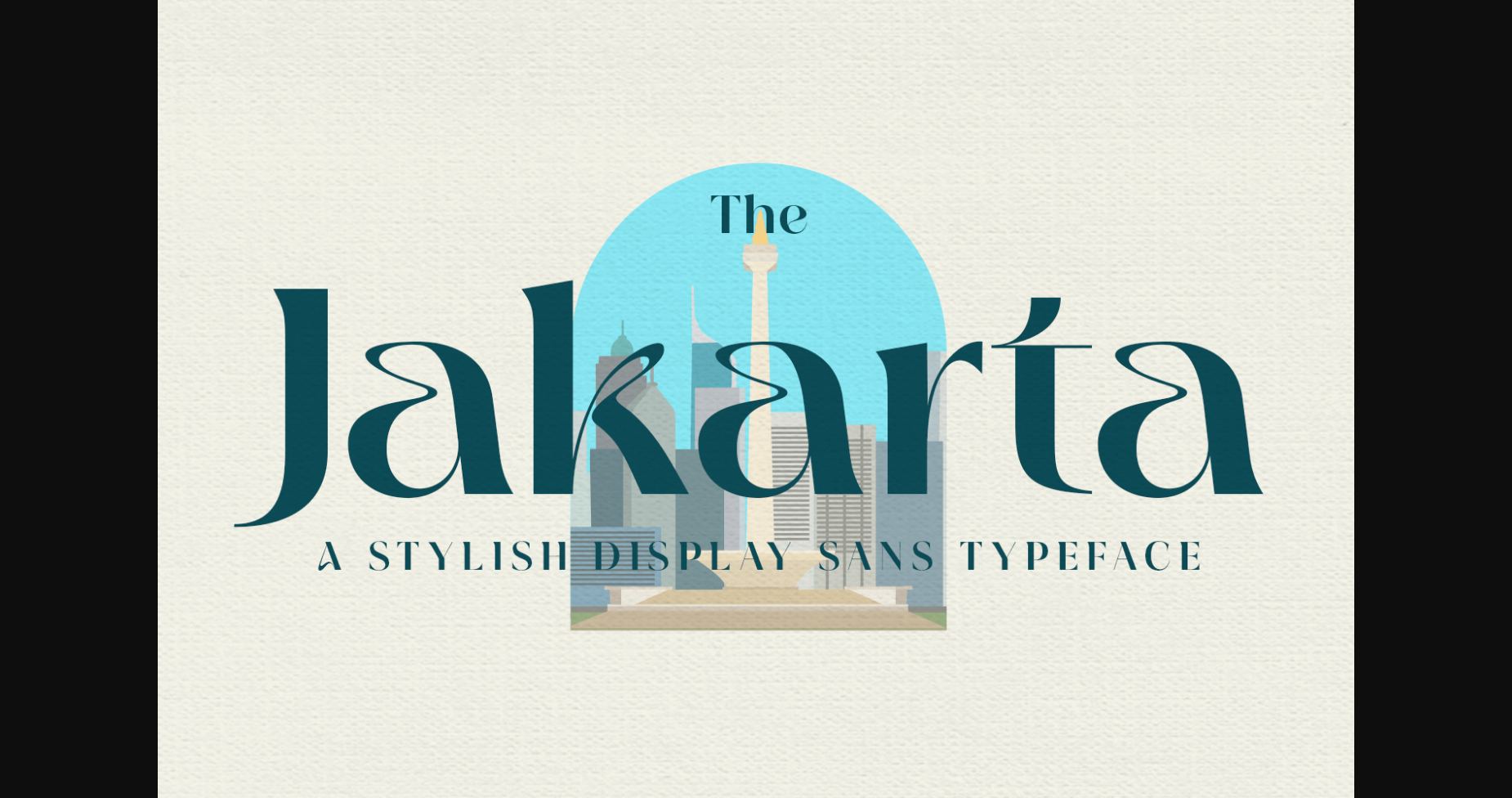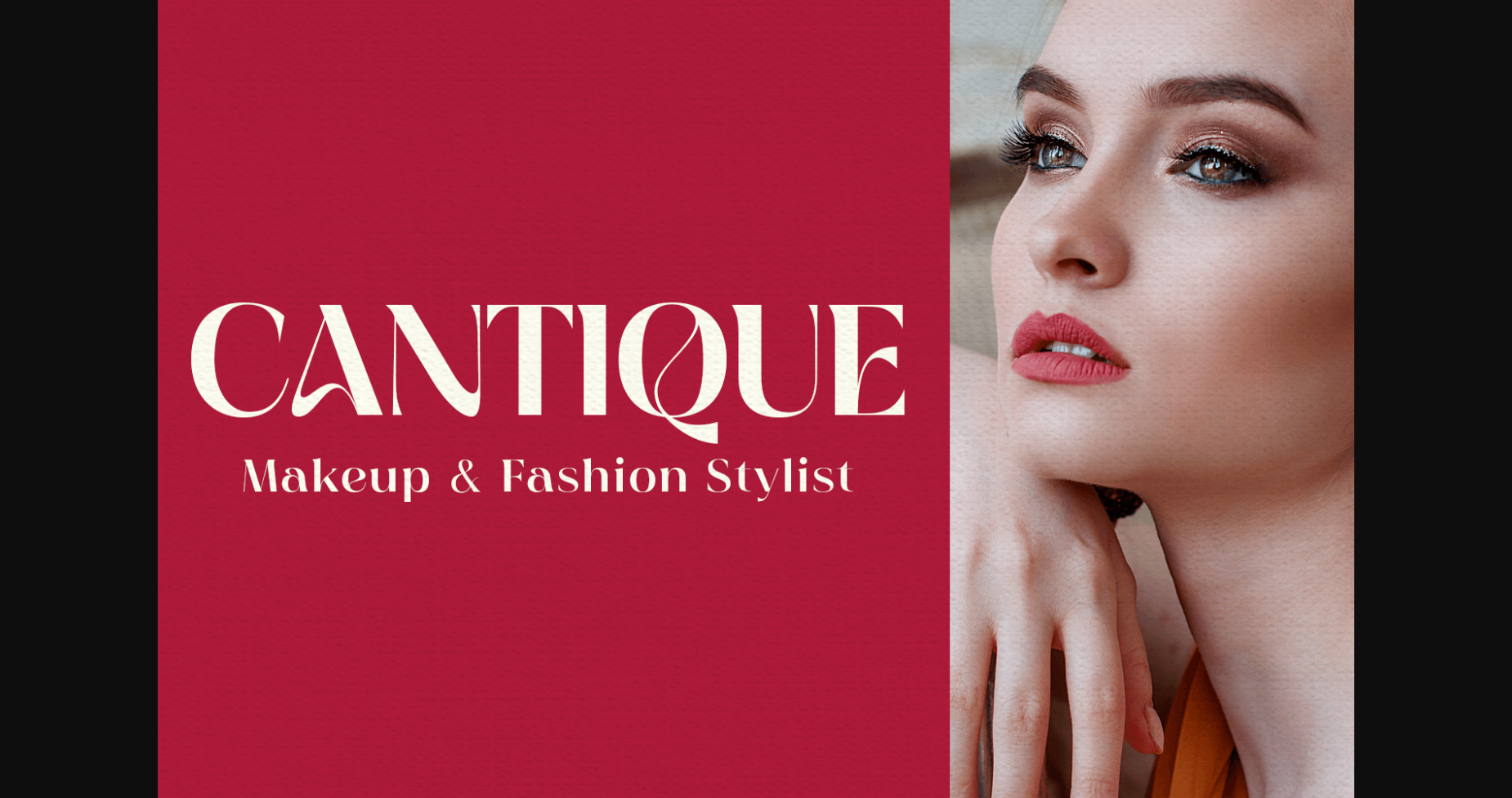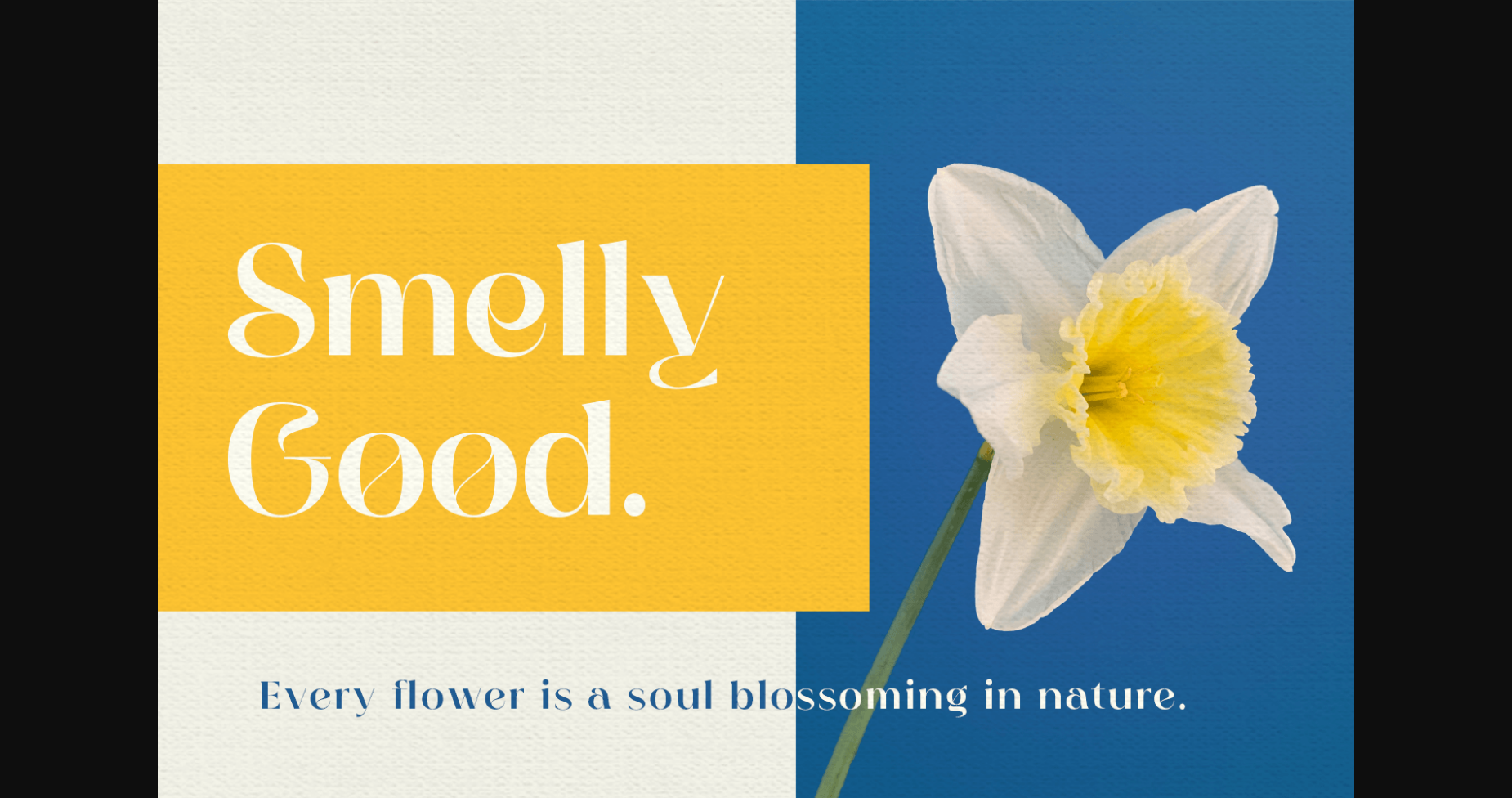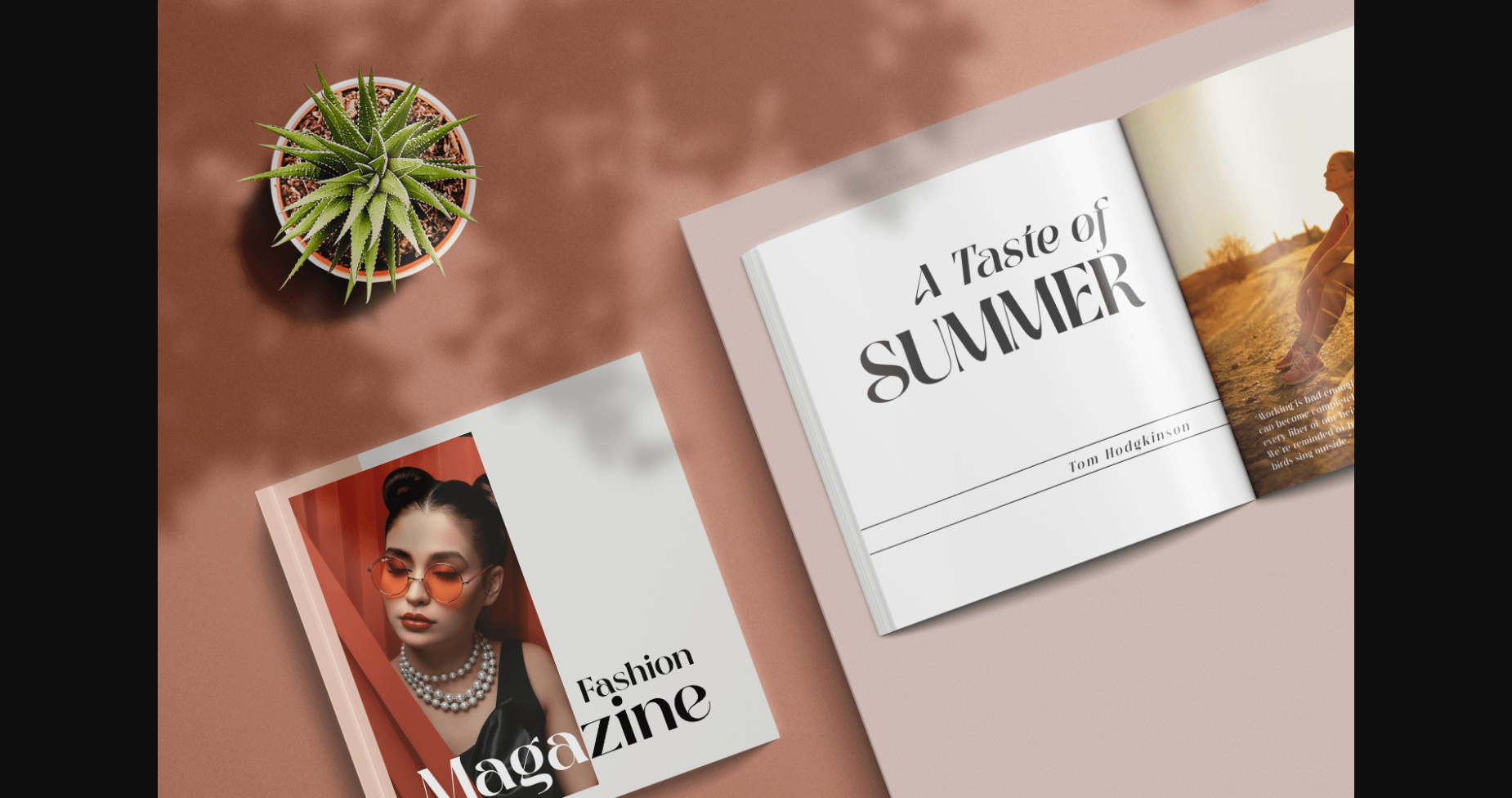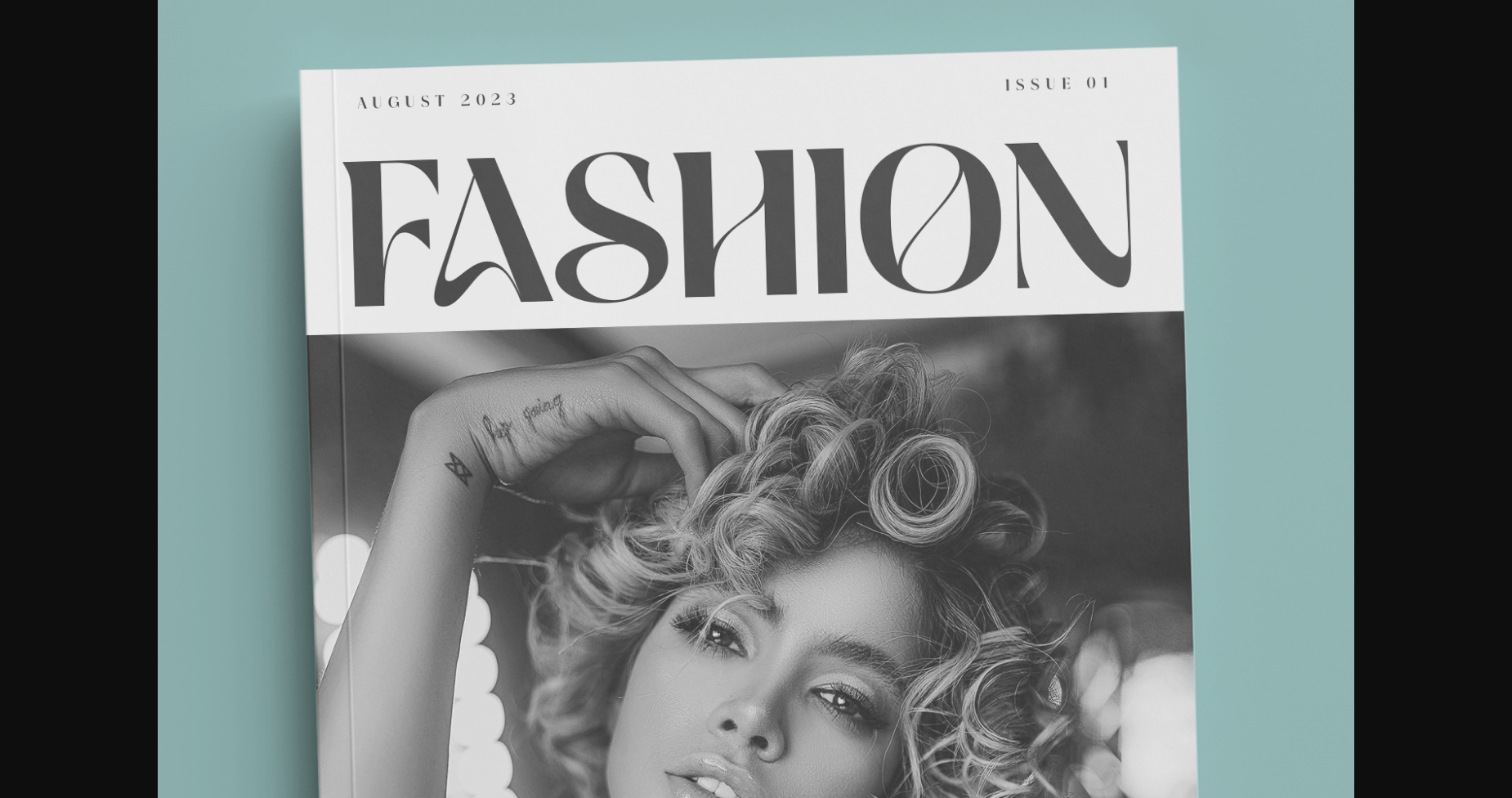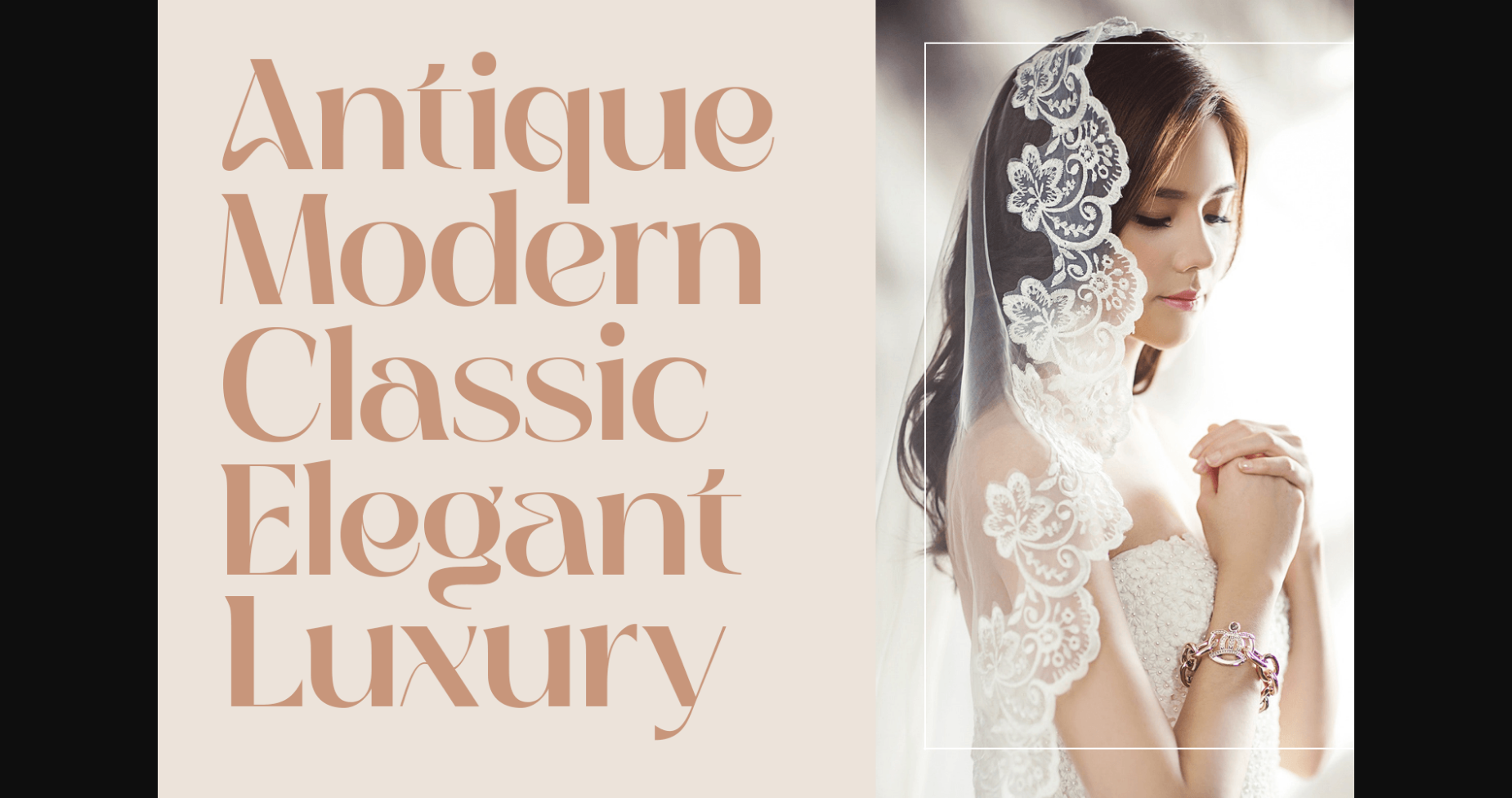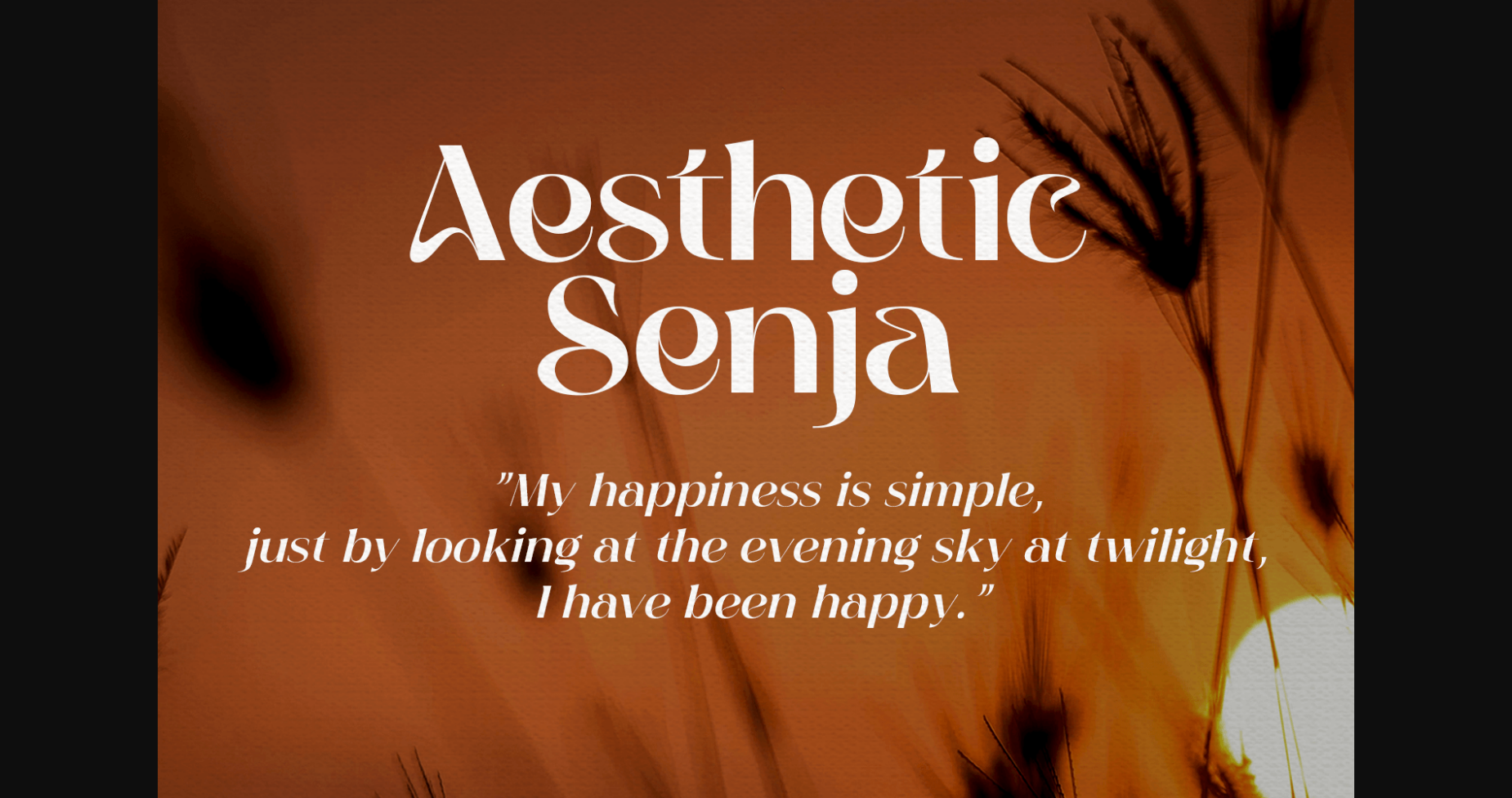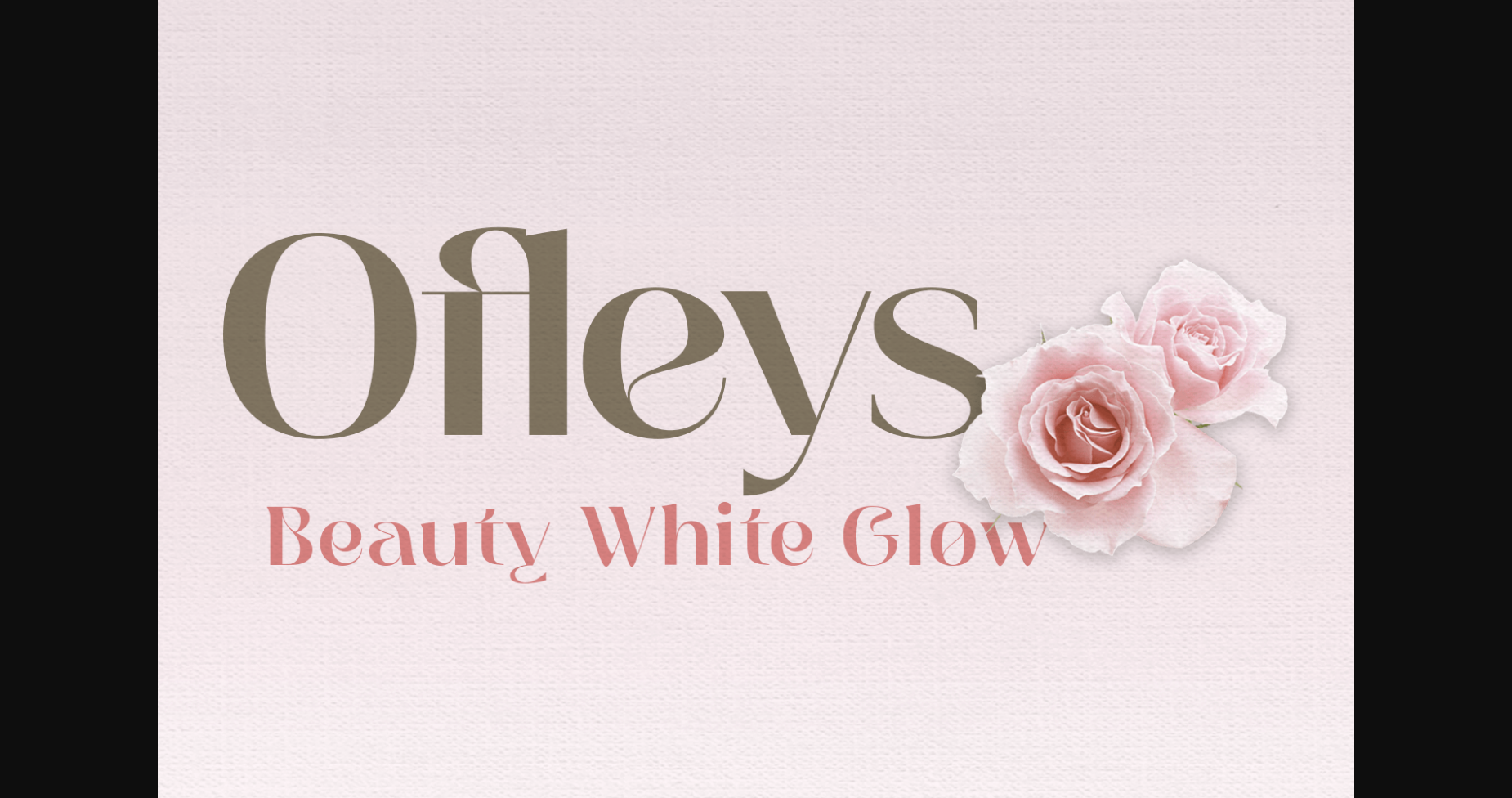
About The Jakarta Font
The Jakarta is a stylish sans serif typeface. Its basic technical detail and anatomy comes from the genetics of the “Magnify” family (Geometric classification of typefaces) with several stroke modifications and a combination of smooth curves for a minimalist, elegant and modern impression.
The Jakarta is perfect for a logo, product, headline, or any display design.